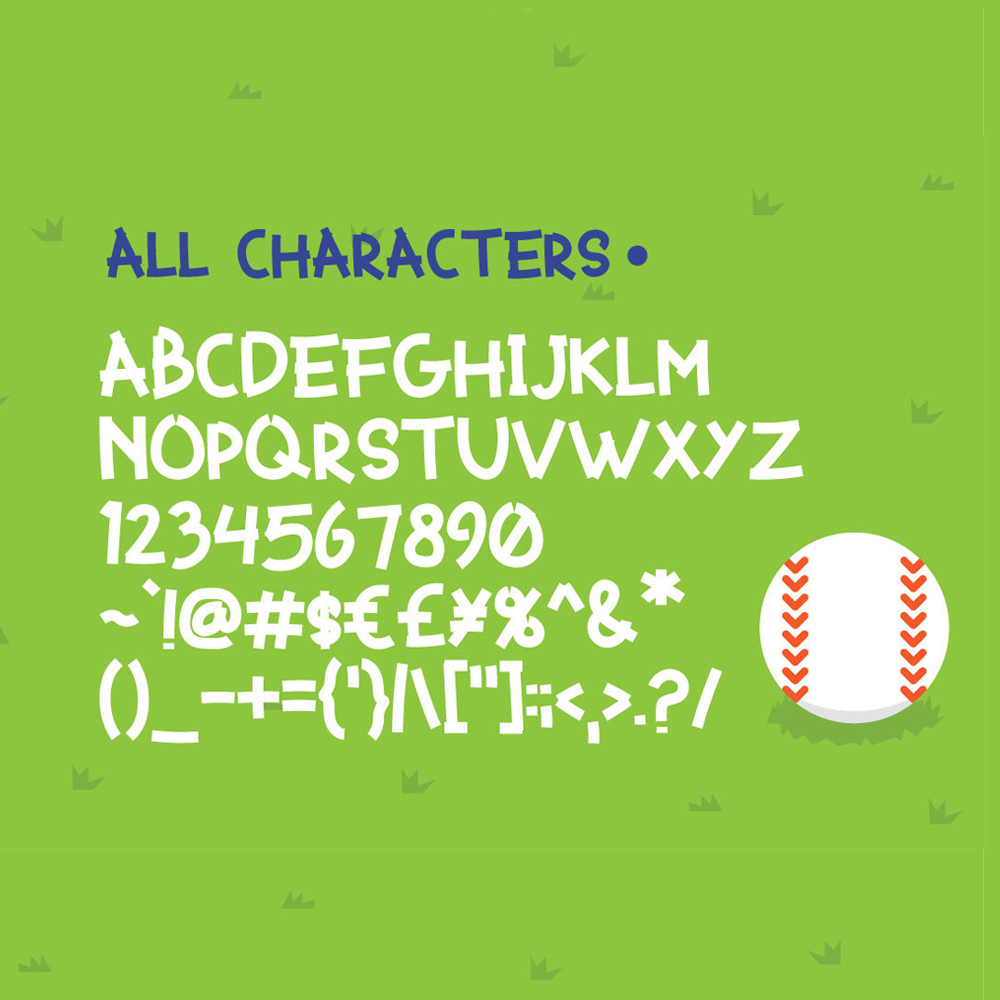
Game On Font
Game On Font is a cut friendly font compatible with Cricut, Silhouette, SCAL and Scan N Cut. Its thickness makes it an ideal font for making cut files.
• Uppercase, Lowercase, numbers & punctuation